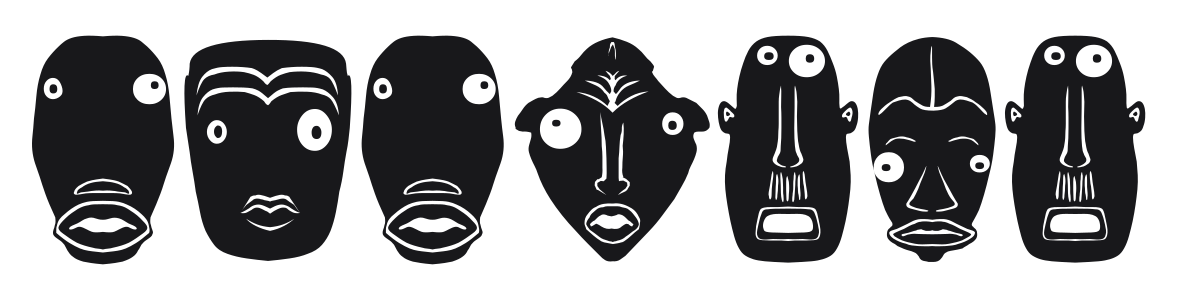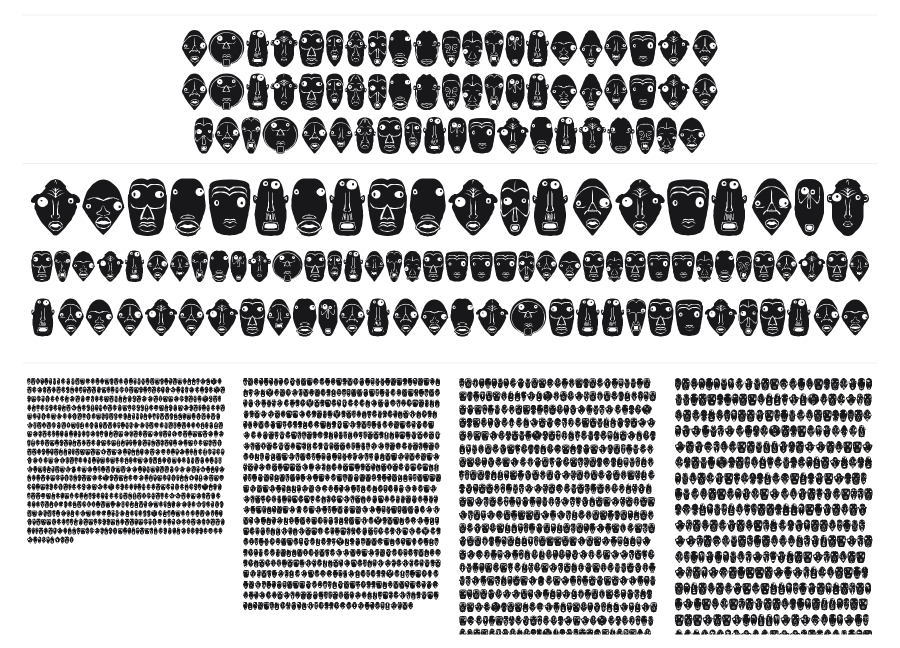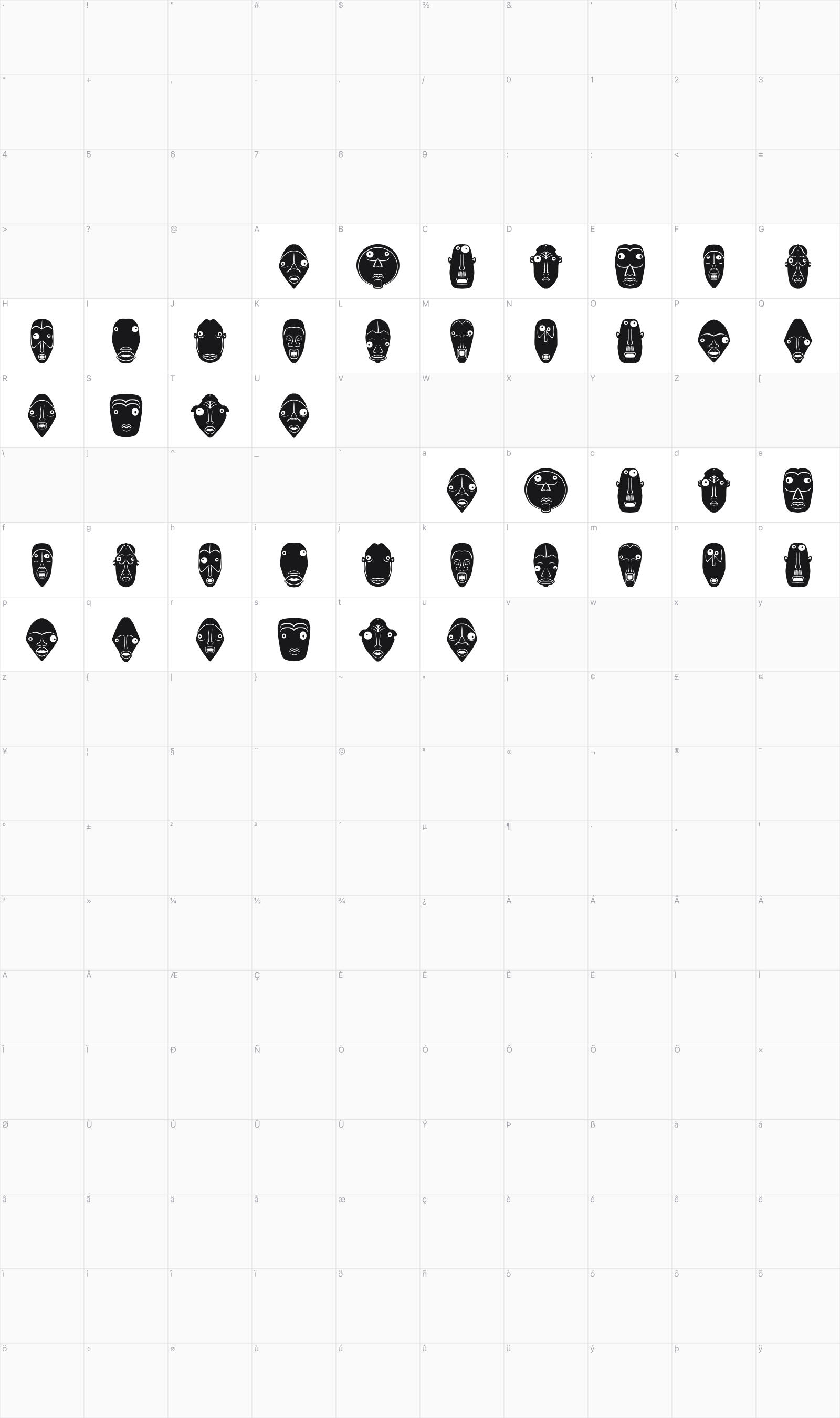
Isitolo
Isitolo is a dingbat font made up of stylized African ceremonial mask illustrations, each one a distinct black silhouette with its own expression and headdress. The set spans a wide range of mask forms, from broad geometric faces to elongated sculptural profiles, giving designers a versatile toolkit for cultural and decorative work. Every character reads clearly at large sizes, making it a natural choice for editorial spreads, surface patterns, and identity work with an African art influence.